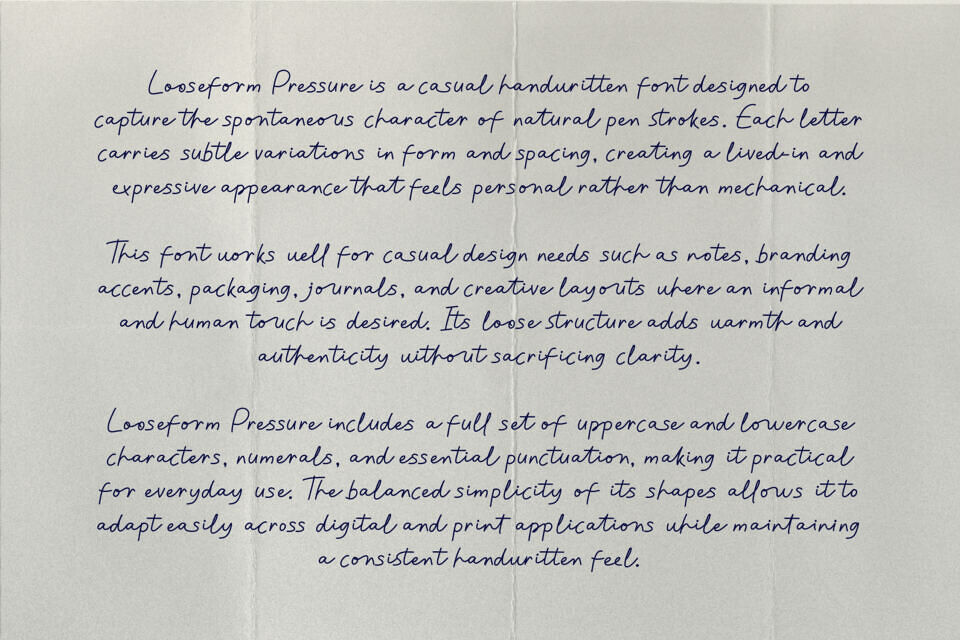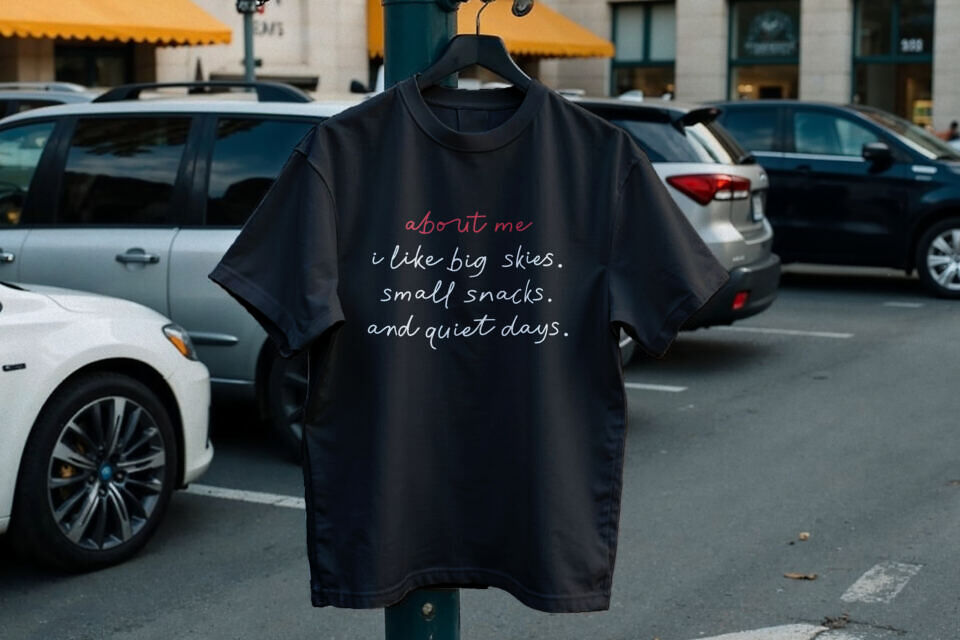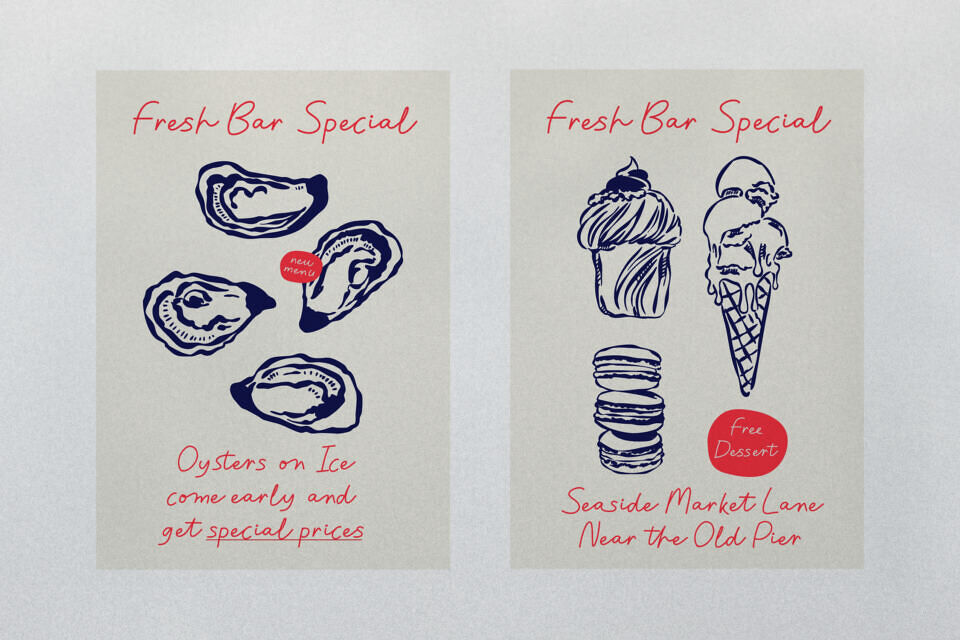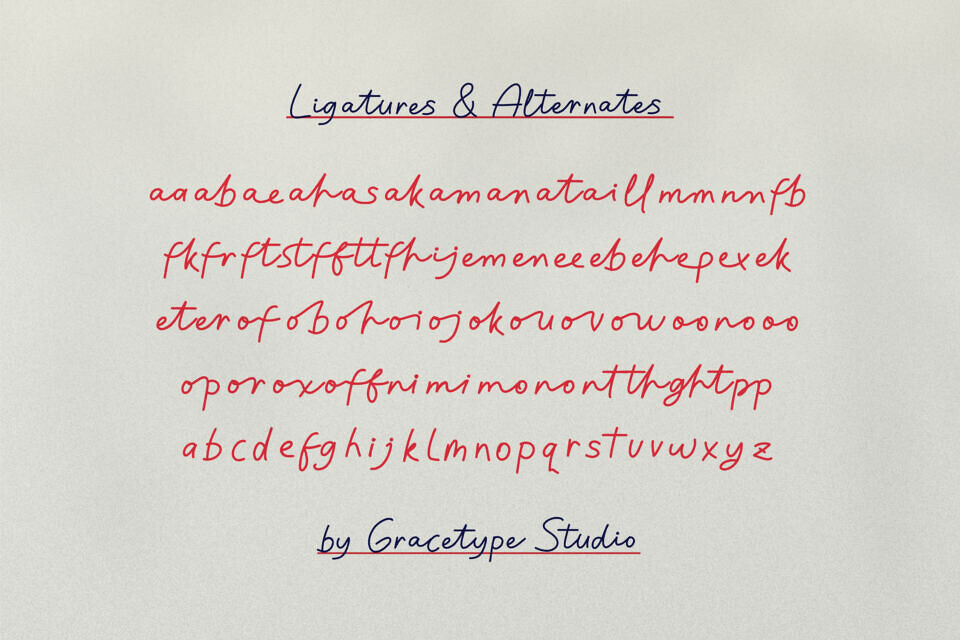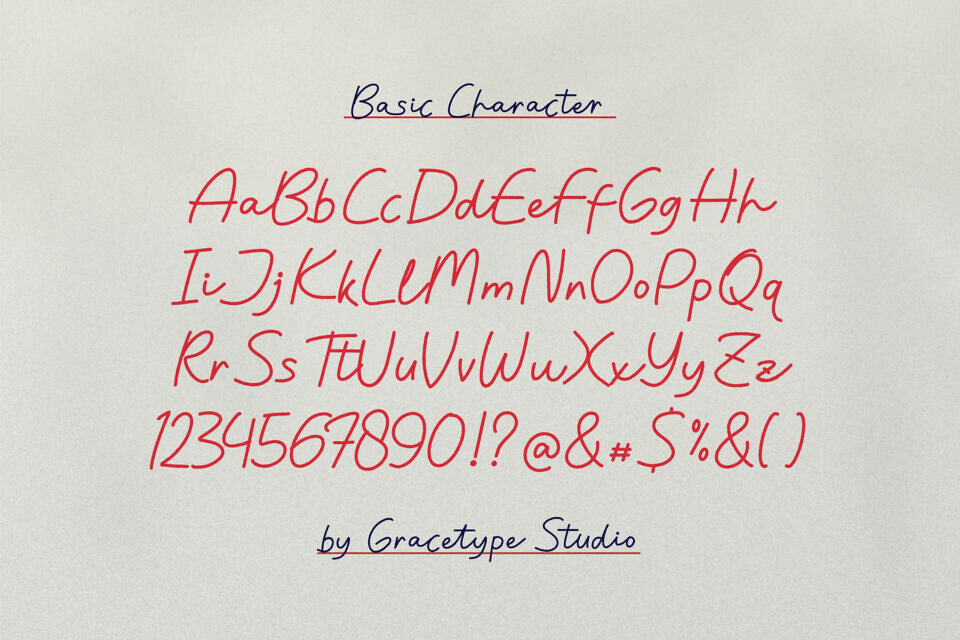
Looseform Pressure font is a raw and authentic “messy” handwritten script that captures the spontaneous energy of a quick note jotted down in a moment of inspiration.
This expressive Looseform Pressure typeface features a casual, unrefined flow with slightly shaky strokes that give it a deeply human and relatable character. It is the perfect Looseform Pressure font for designs that need to break away from perfection, such as edgy streetwear branding, “messy” digital journals, or contemporary art posters.